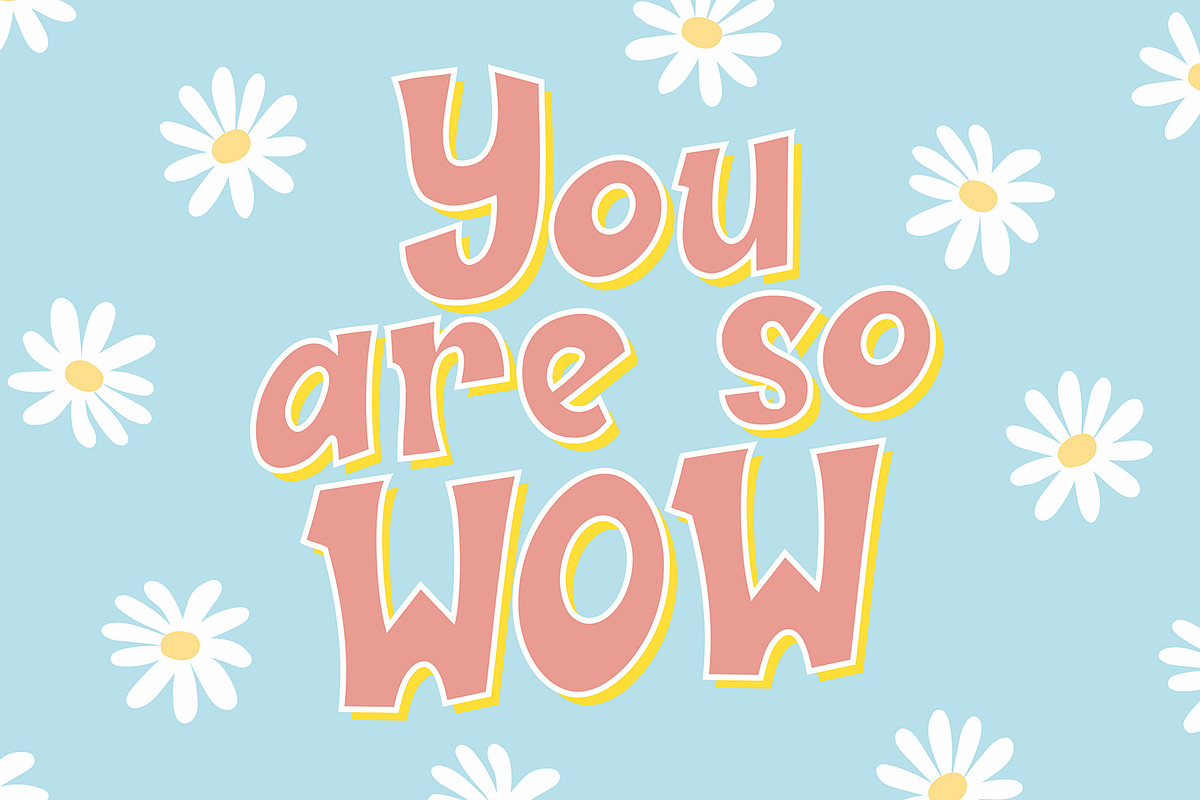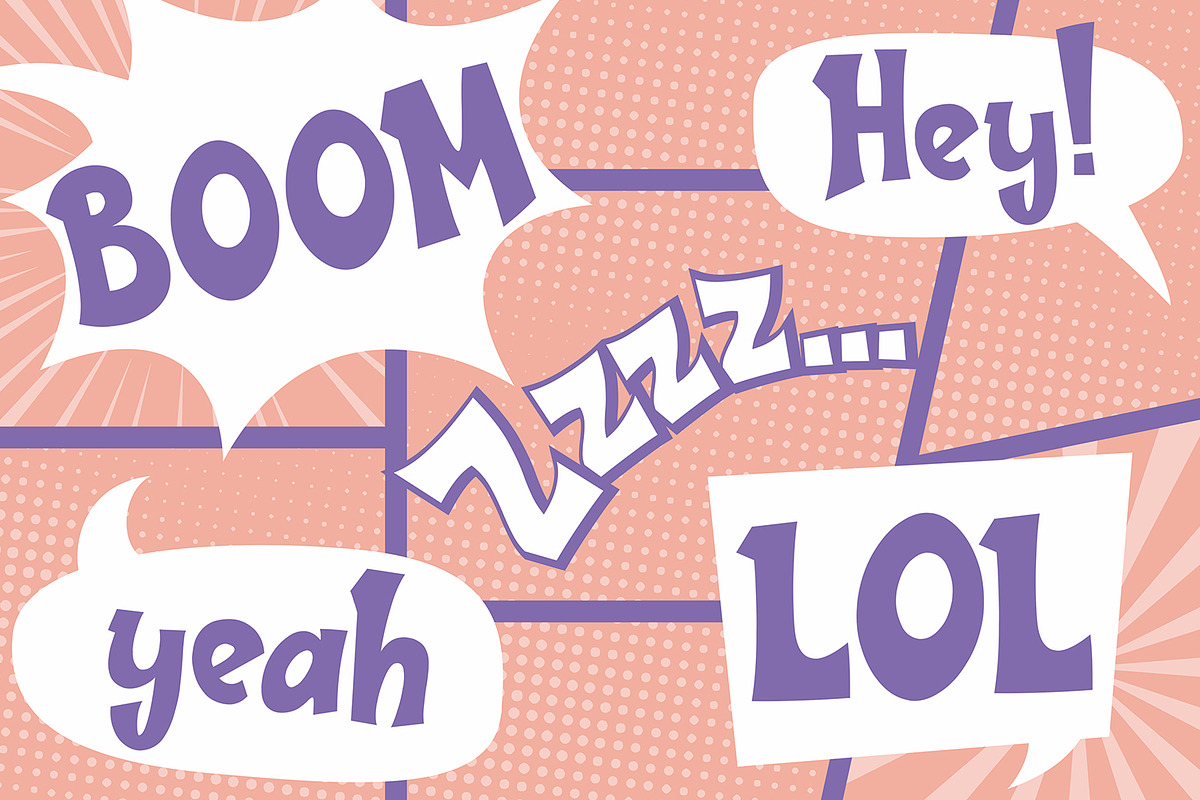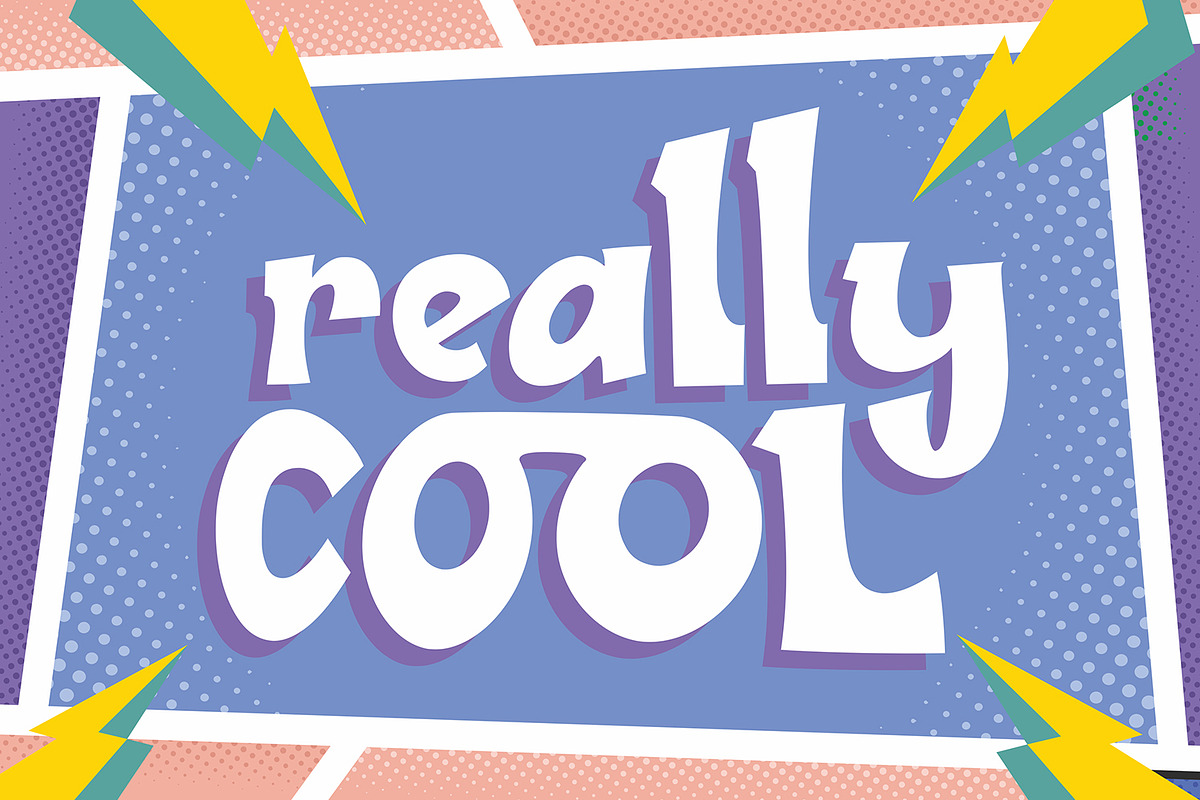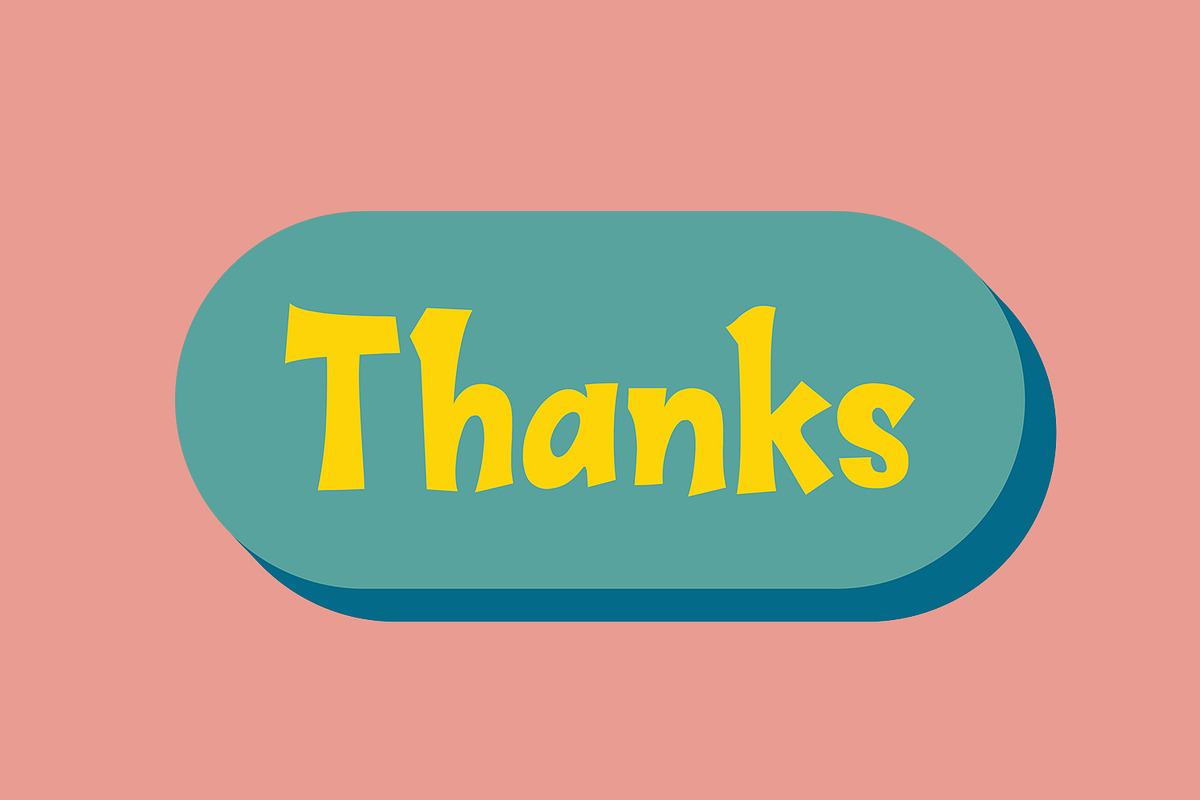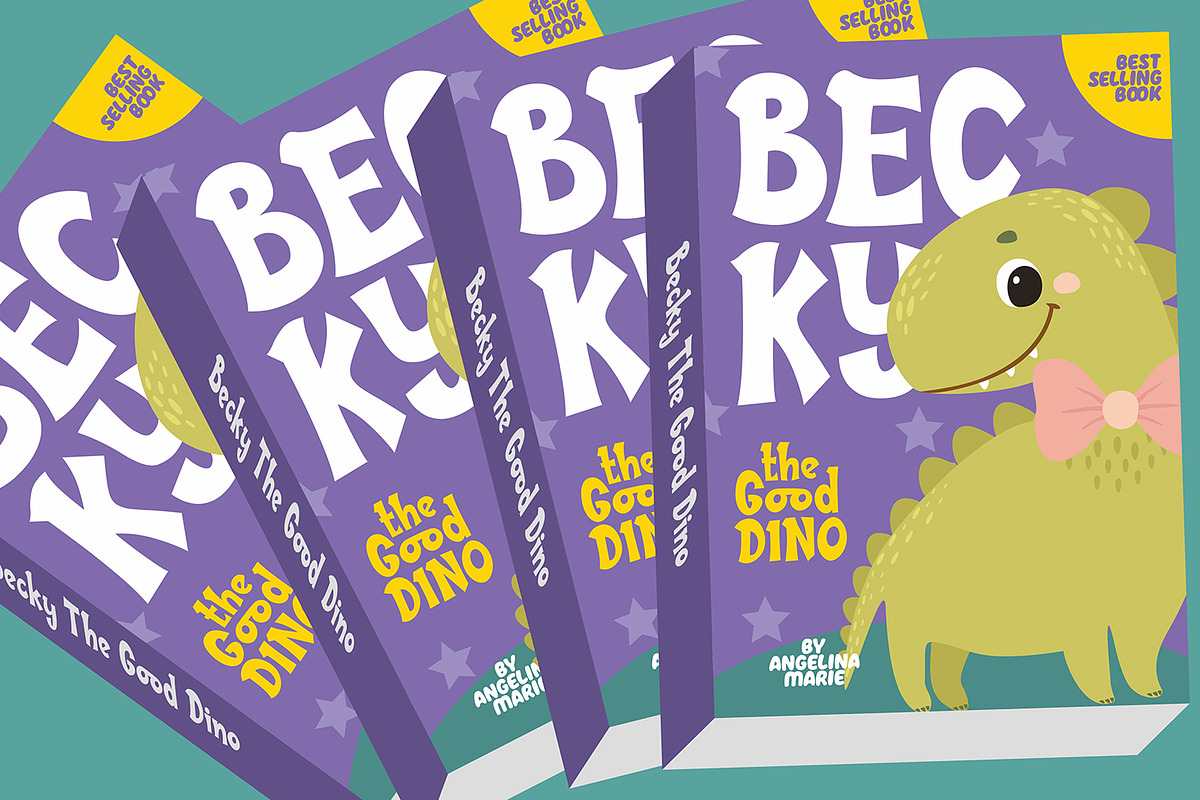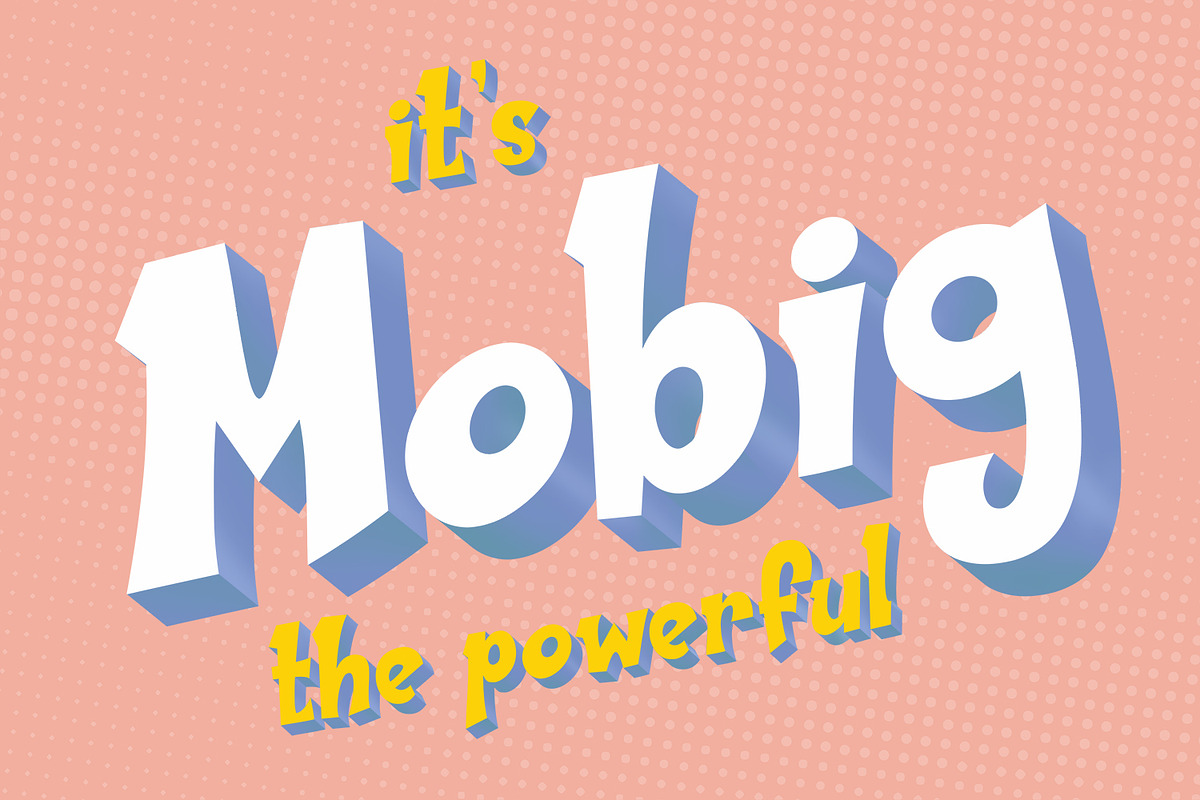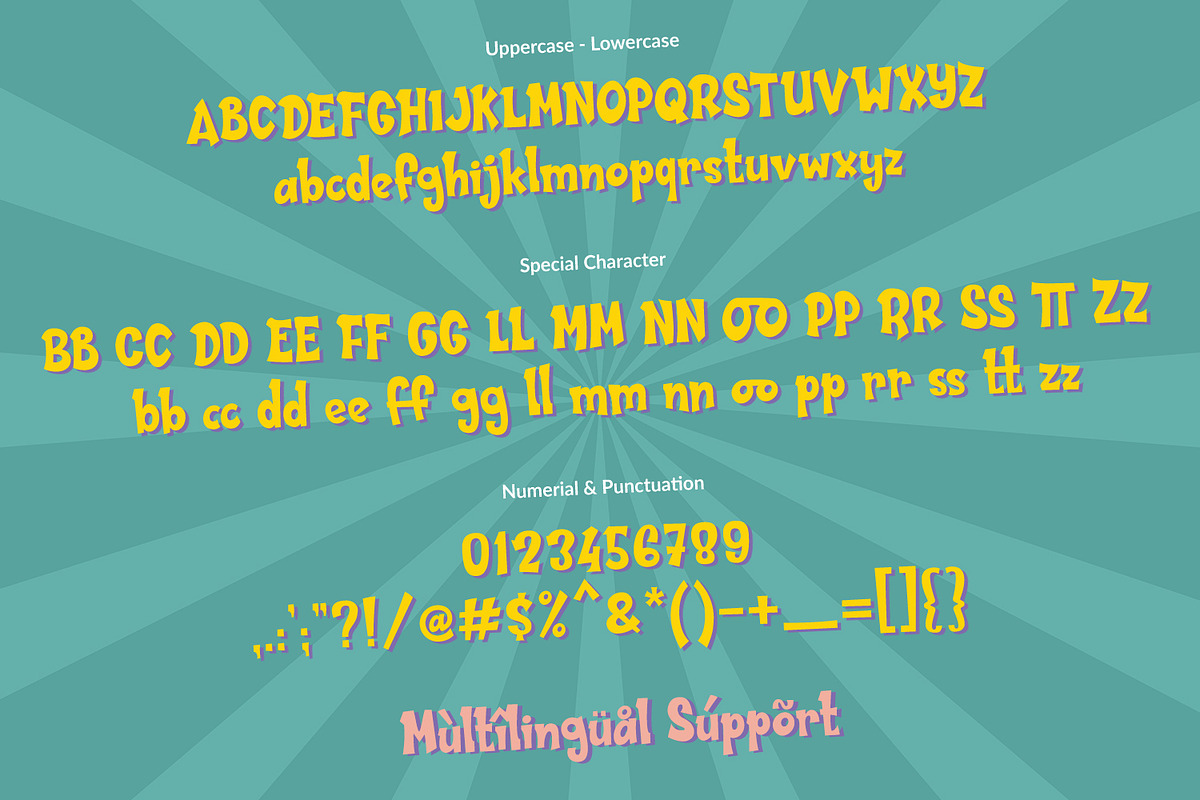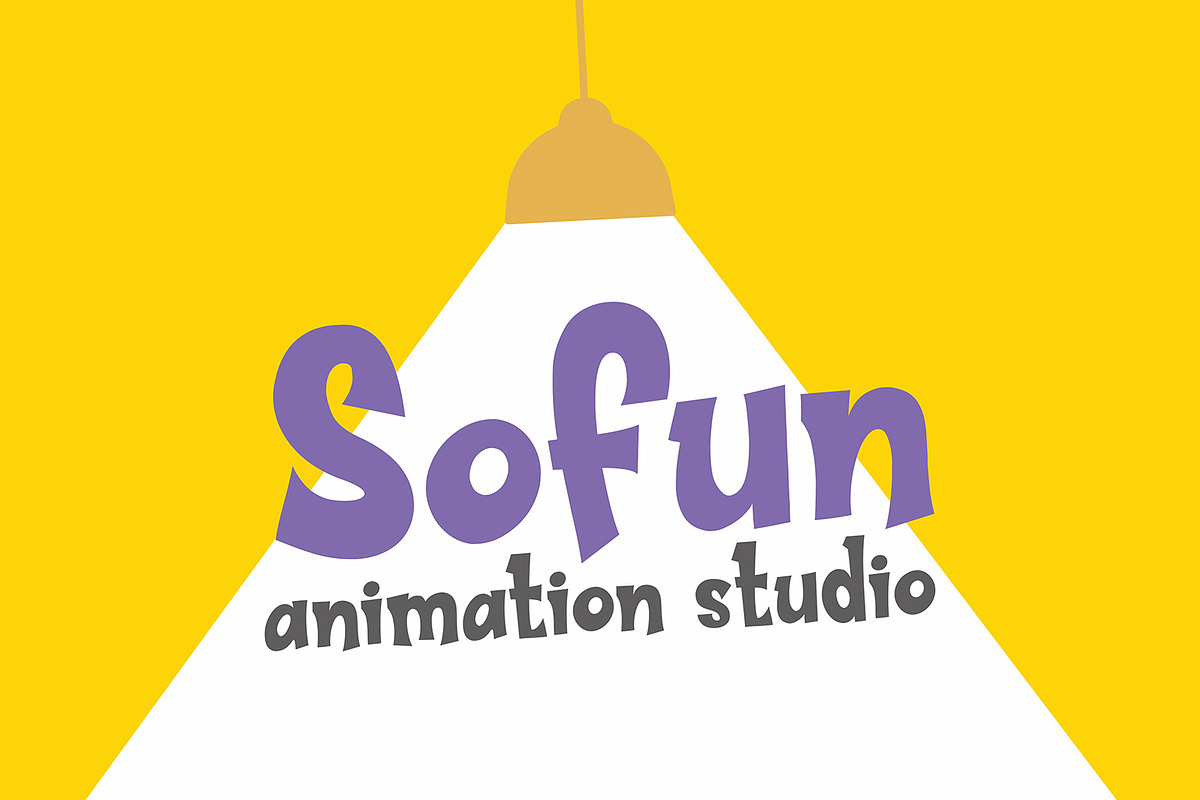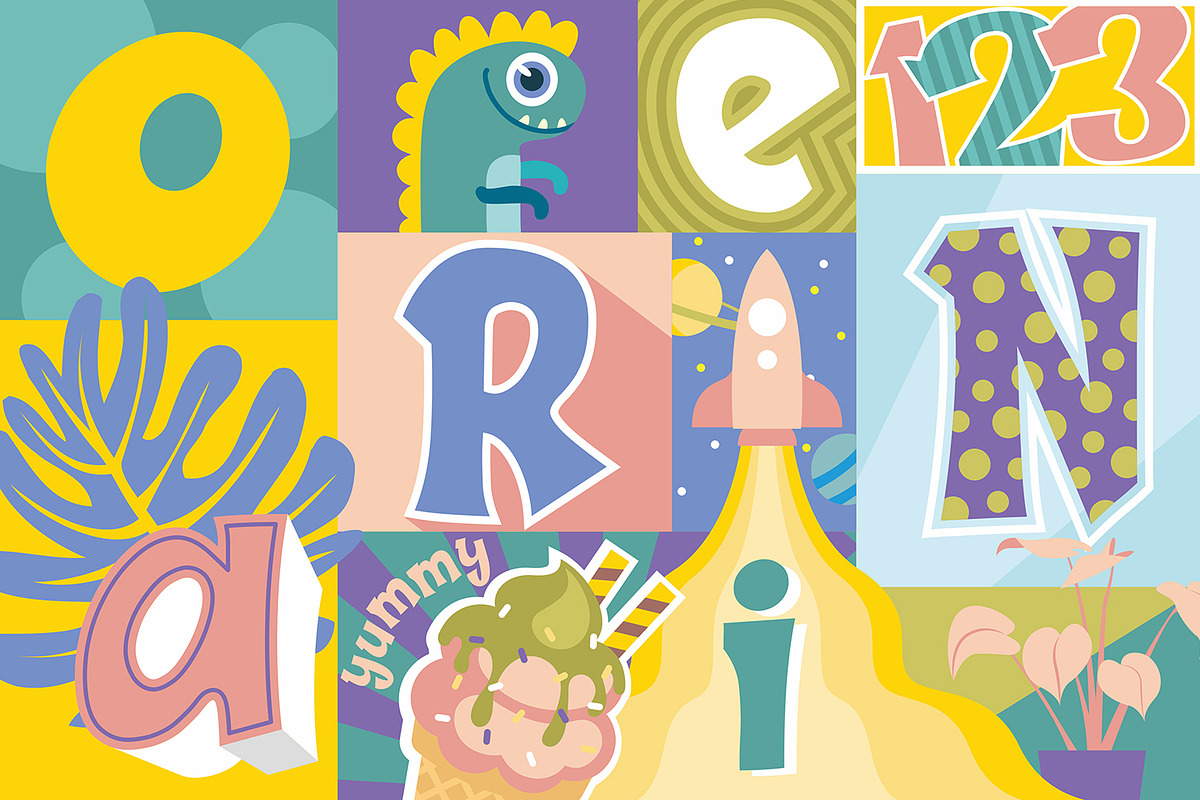
Mobig
Mobig is a powerful display font. This font has bold comic style, looks so strong yet playful. Mobig font is complete with uppercase, lowercase and special characters, also support many languages. It's perfect for any design project, such as cartoon, illustration, advertising, cut, craft, advertising, clothing, branding, and many more.